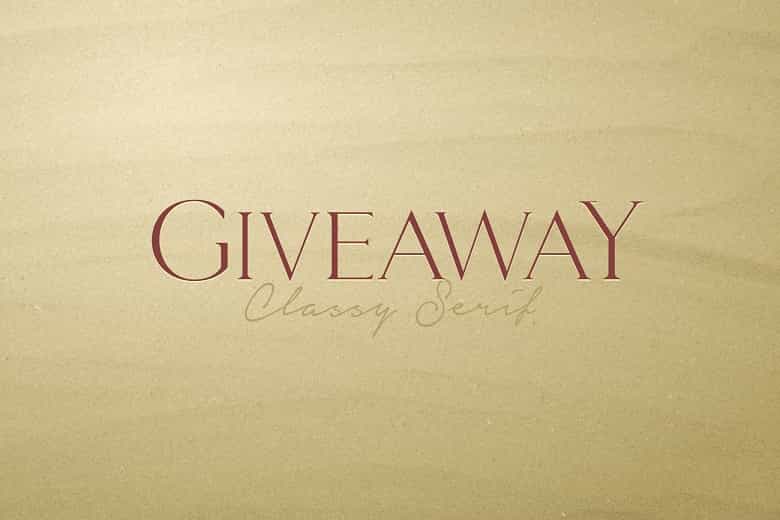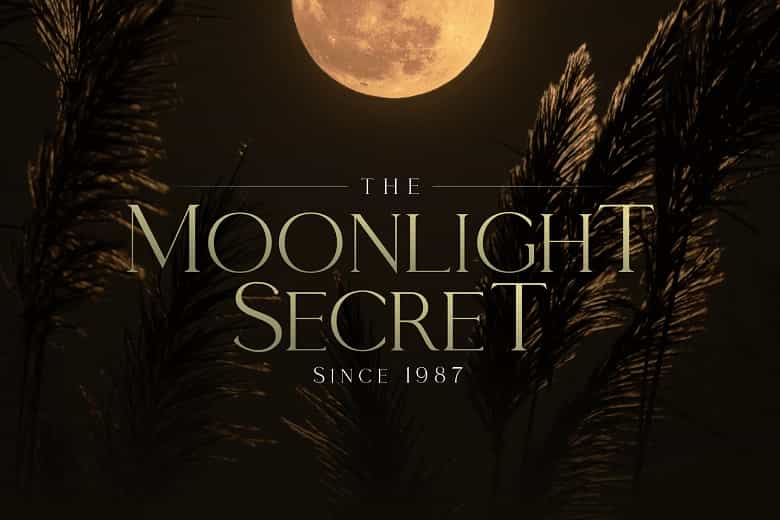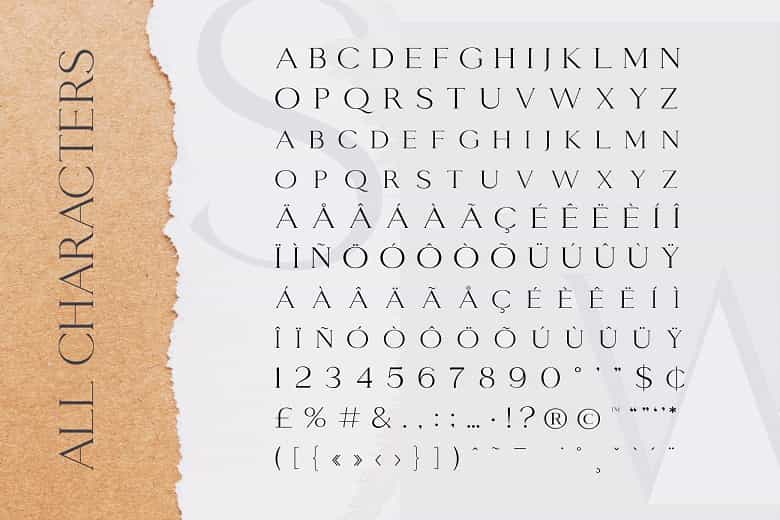
Giveaway is a beautiful and classy serif font that has a modern design with clean and elegant characteristics. This is good for your business logo, wedding invitation, cards and may be for some project. This is Ideal for BRANDING AND LOGO DESIGN. You will obtain elegant, stylish and definitely individualized logos using this font.